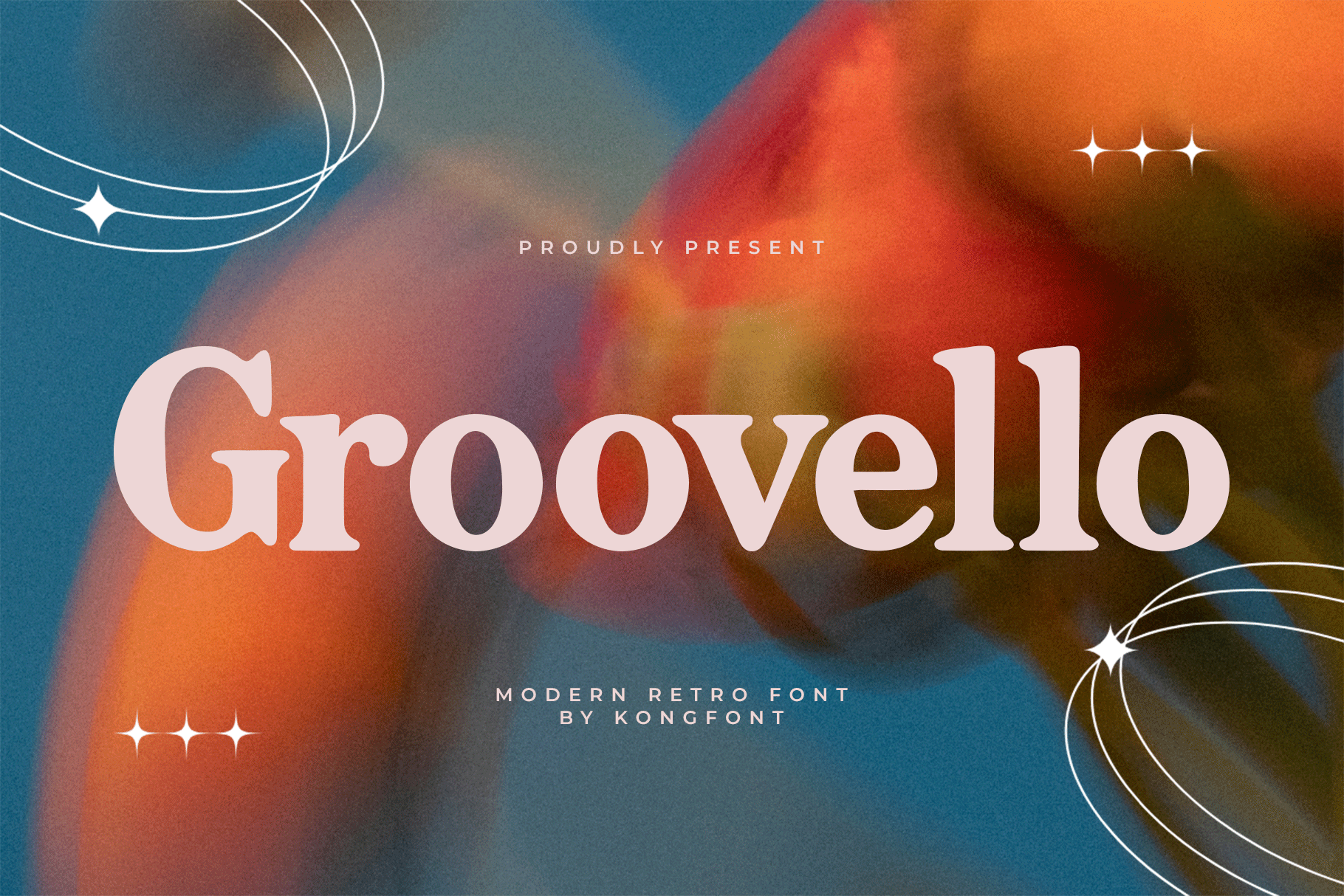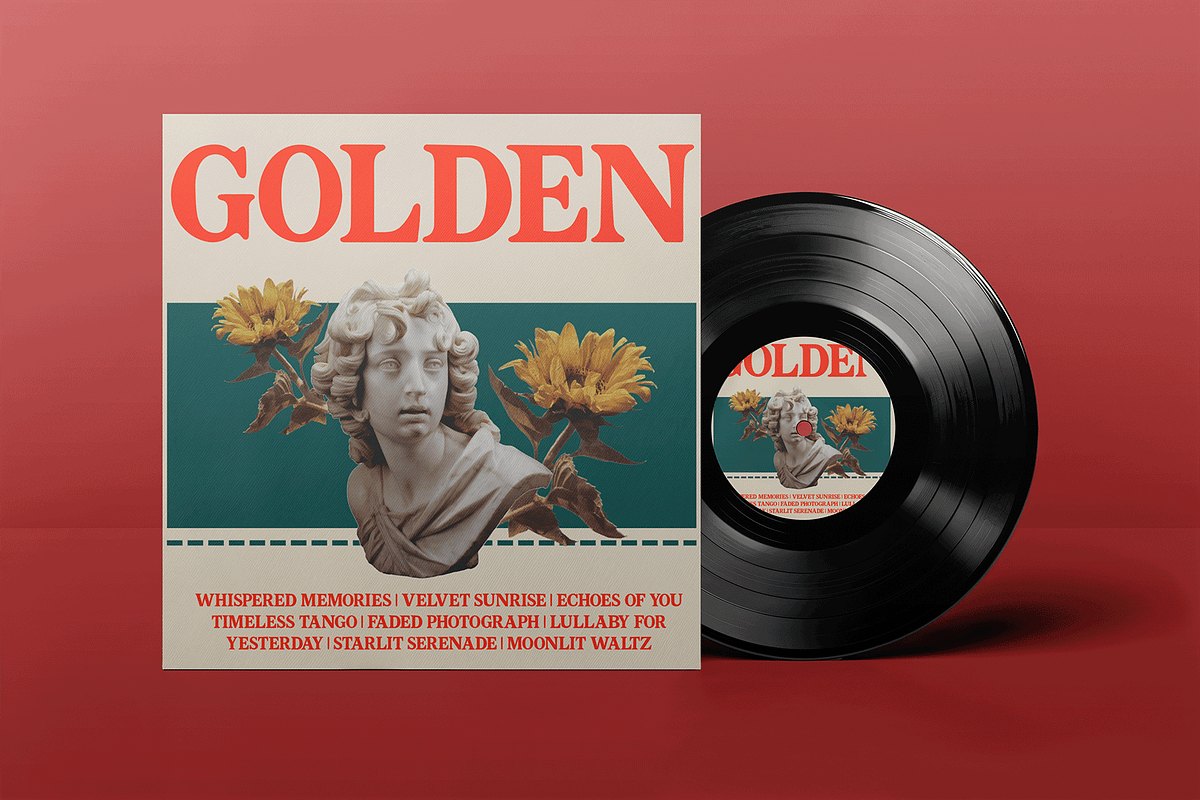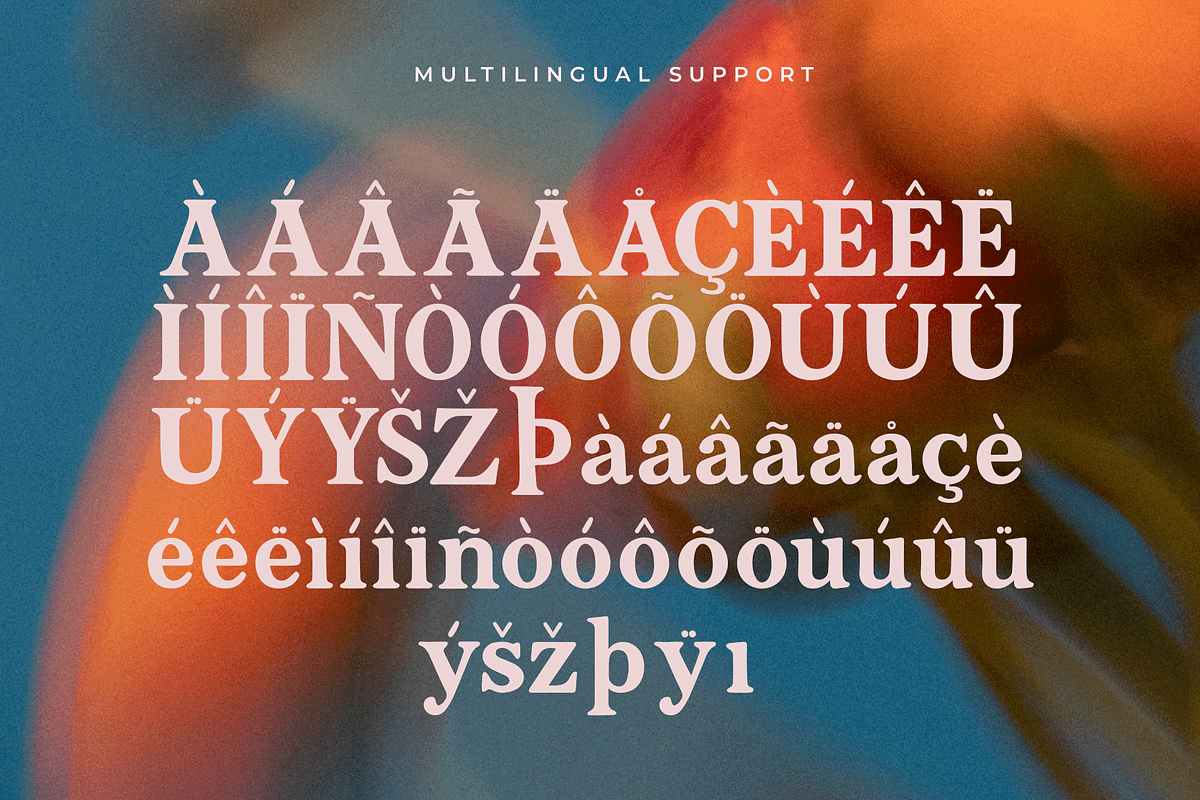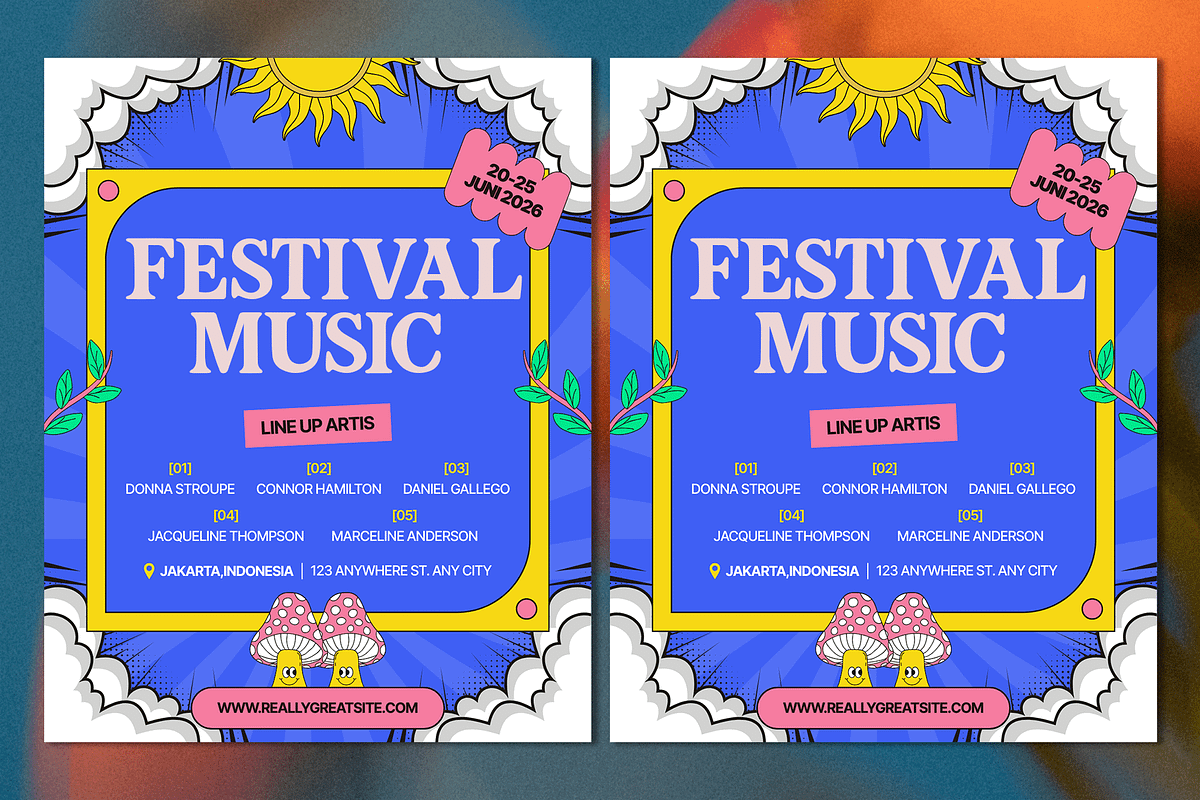
Groovelo – Modern Retro Font
Groovelo is a modern retro font bursting with vibrant personality and nostalgic flair. Inspired by the bold curves and funky vibes of the ’60s and ’70s, this font blends vintage character with contemporary smoothness for designs that dance off the page.
Its chunky letterforms, playful rhythm, and fluid shapes make it ideal for posters, music event branding, t-shirt designs, social media graphics, packaging, and anything that calls for a bold retro aesthetic with modern polish.
Whether you're creating a disco-era throwback or injecting playful energy into modern design, Groovelo delivers a fun, fresh, and fabulous typographic experience.
Includes uppercase & lowercase letters, numbers, punctuation, and multilingual support.